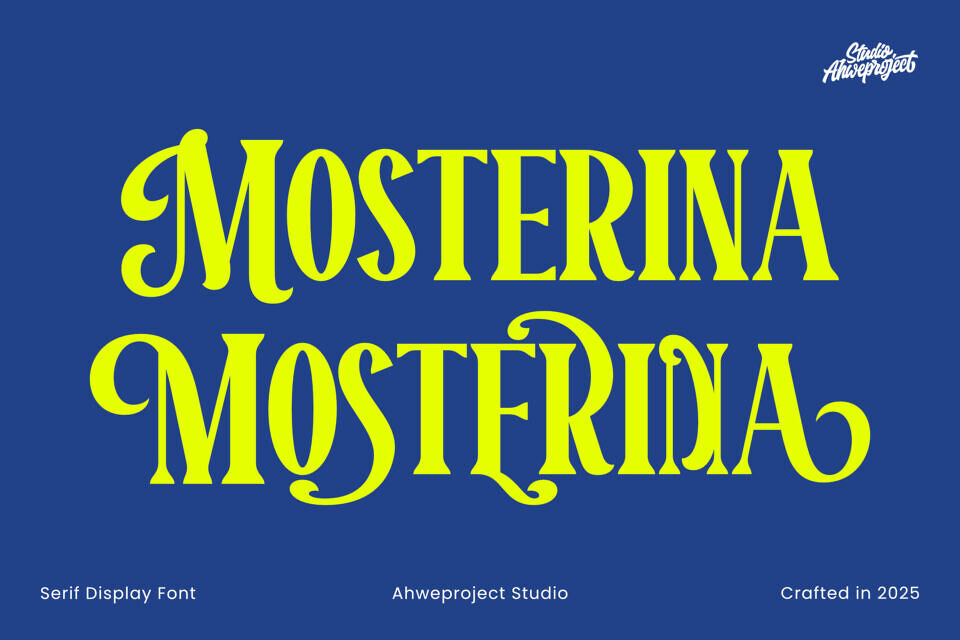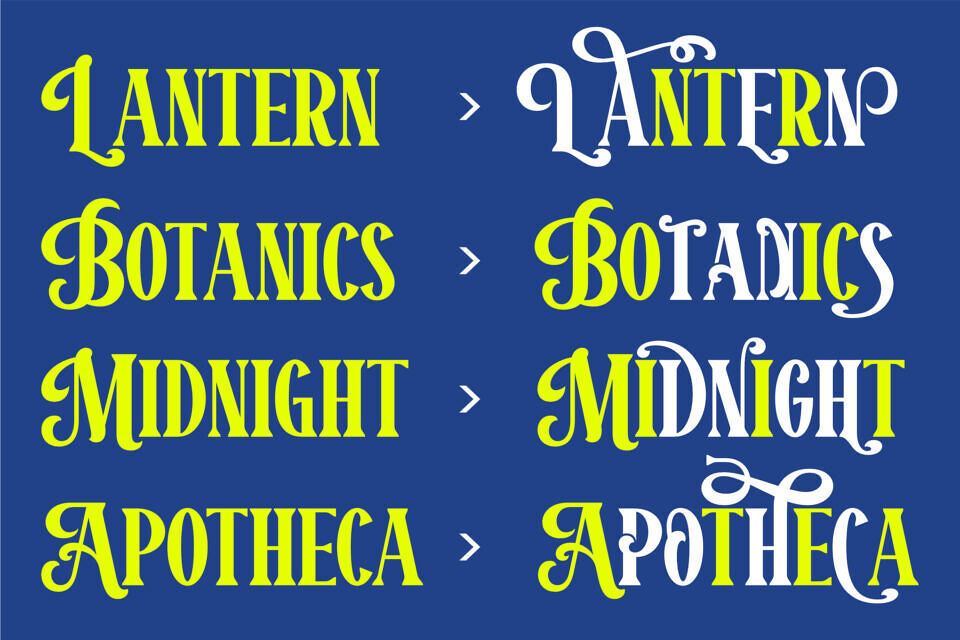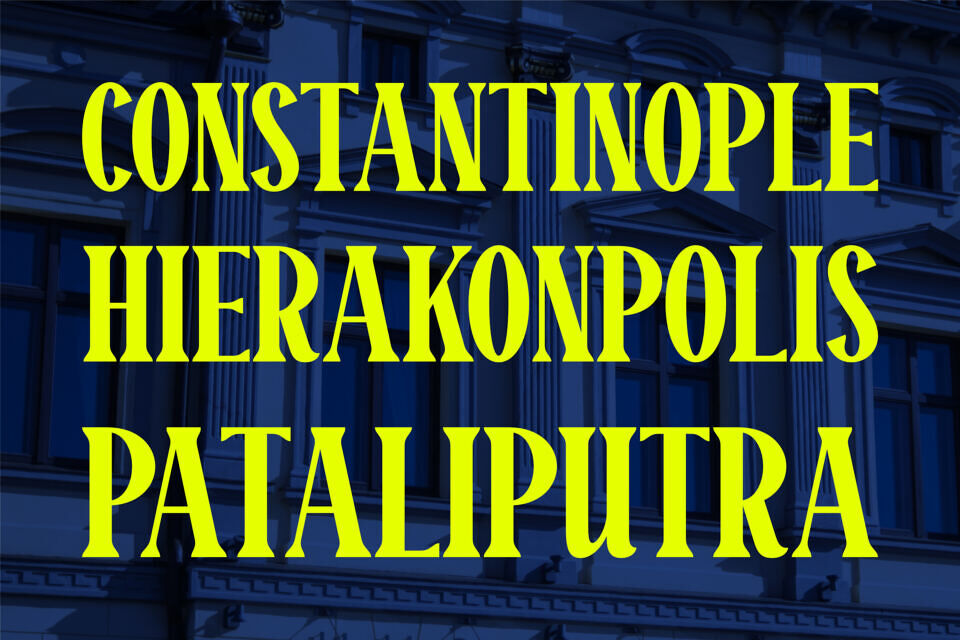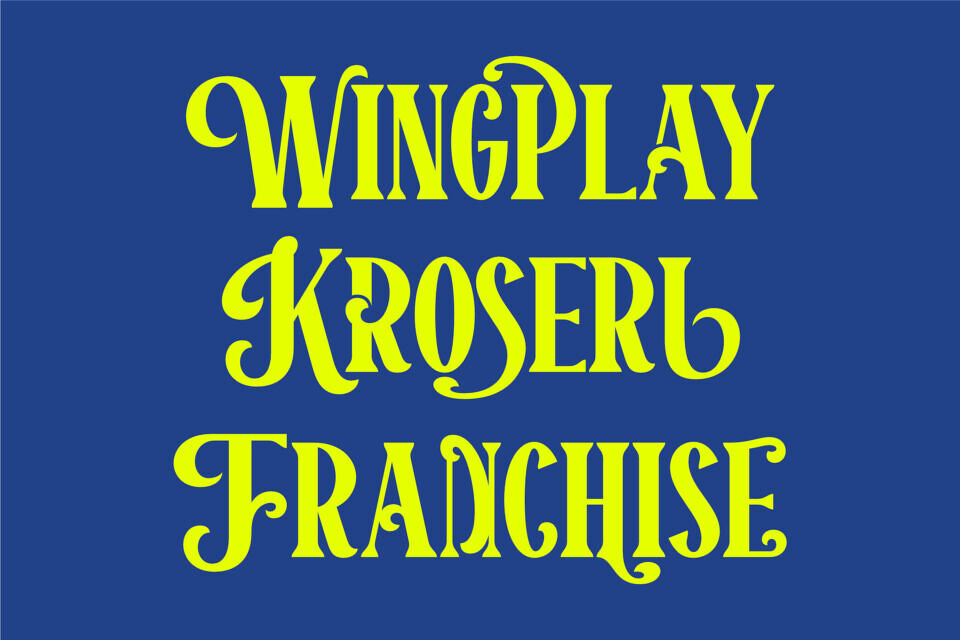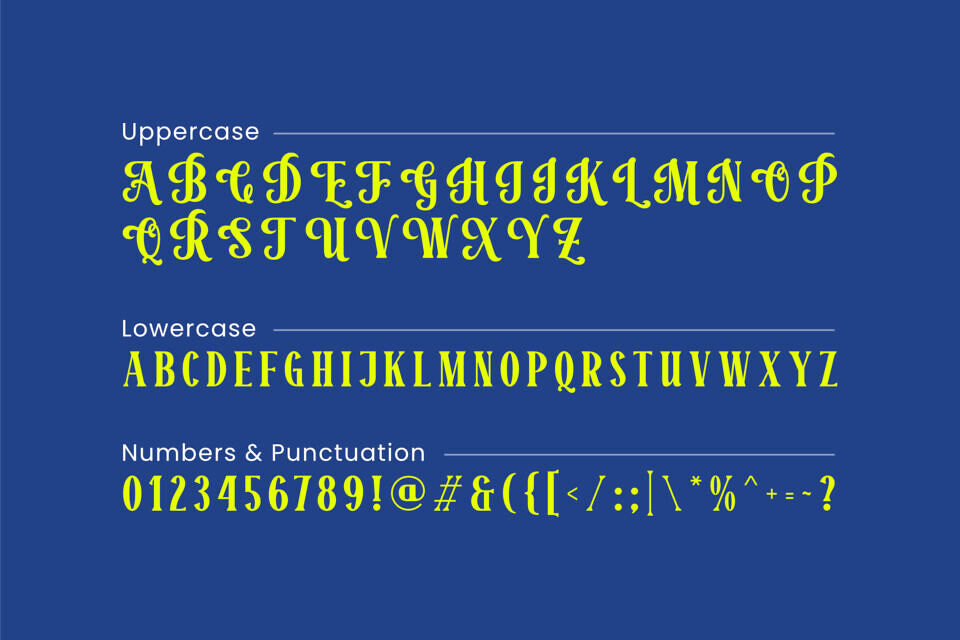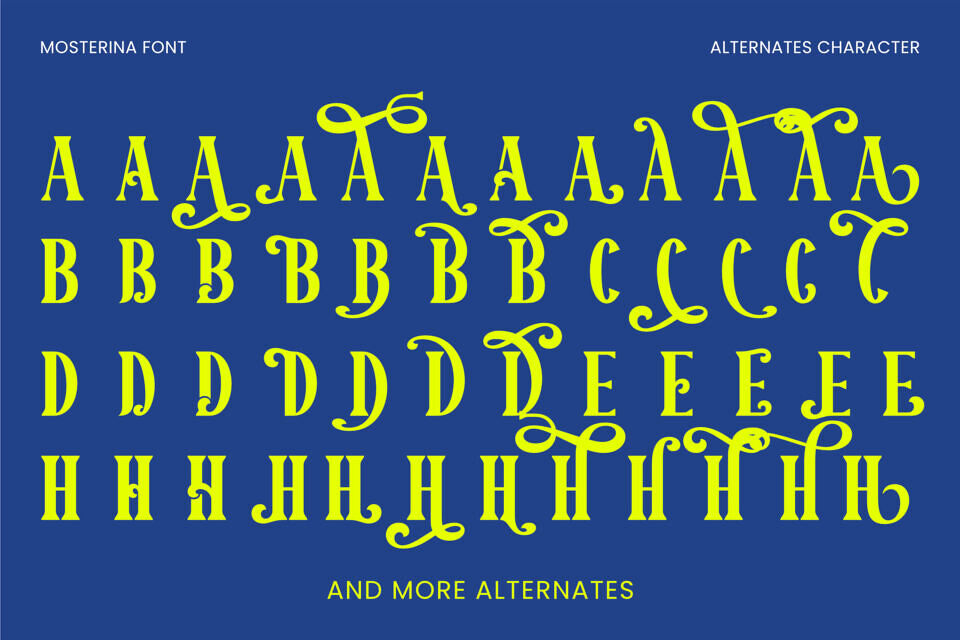
Mosterina Font
Mosterina is a vintage–modern serif display with strong contrast, elegant sharp terminals, and dynamic swashes for dramatic accents. Its expressive letterforms make headlines and logos instantly eye-catching—perfect for branding, posters, editorial/fashion, product packaging, website hero sections, YouTube thumbnails, and seasonal campaigns.